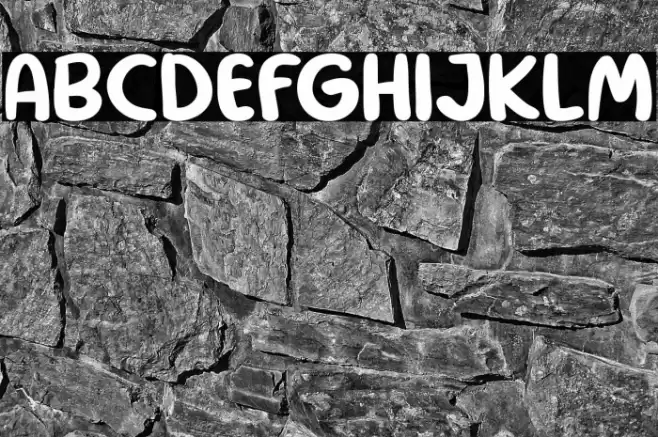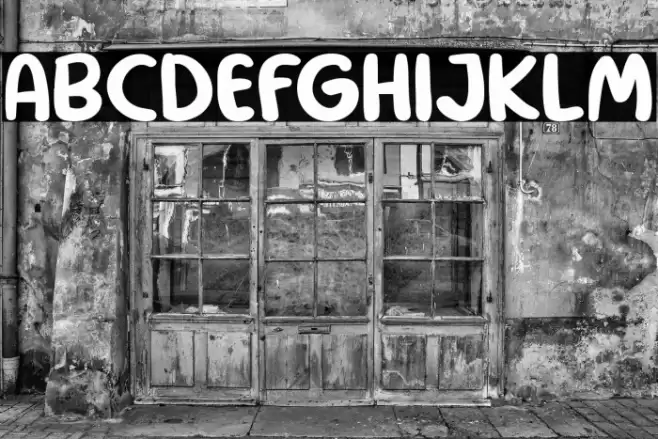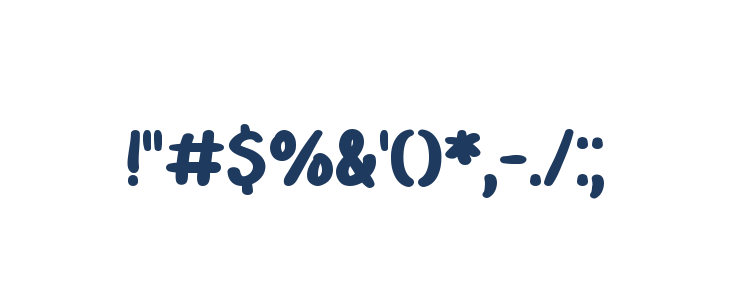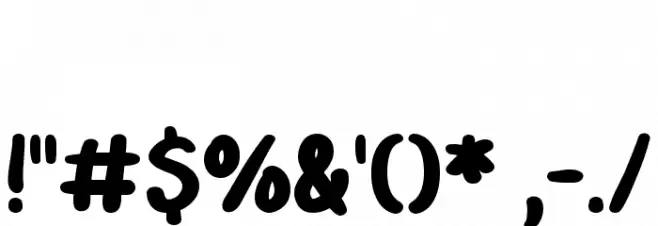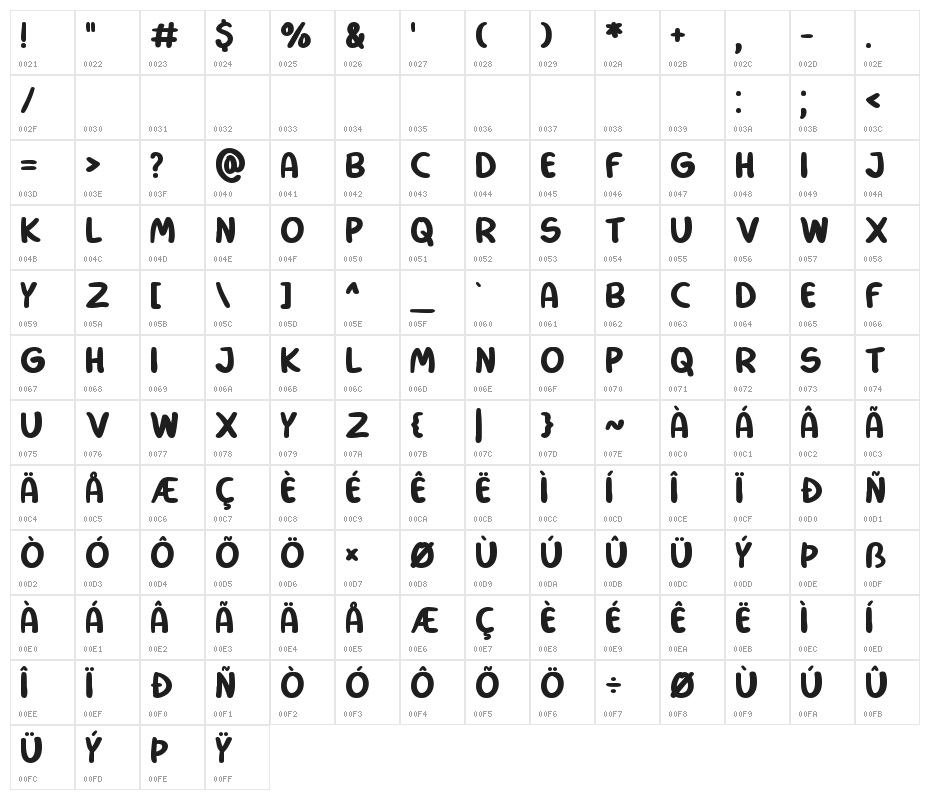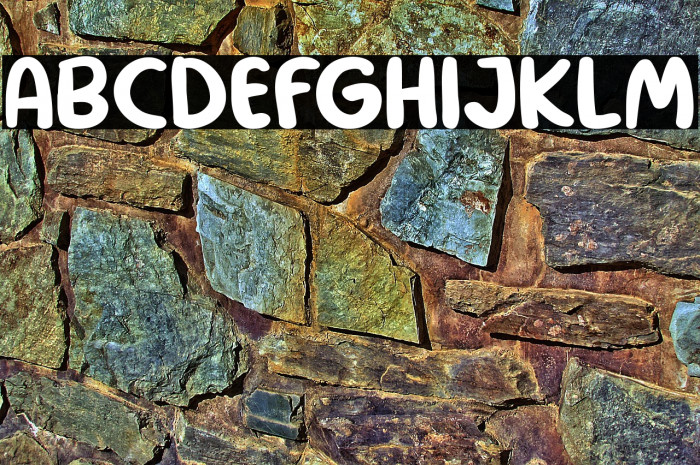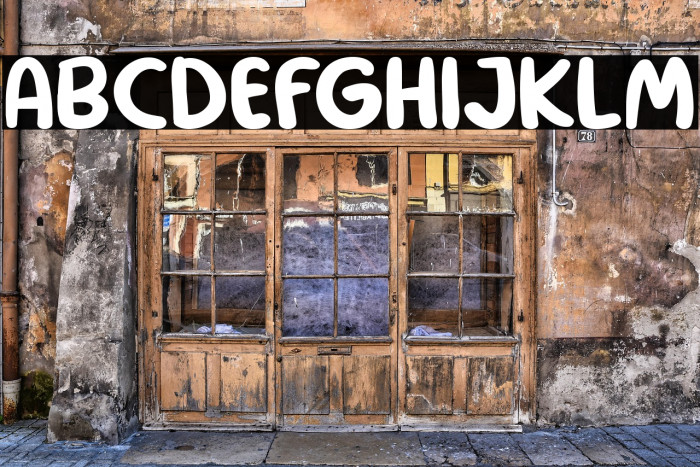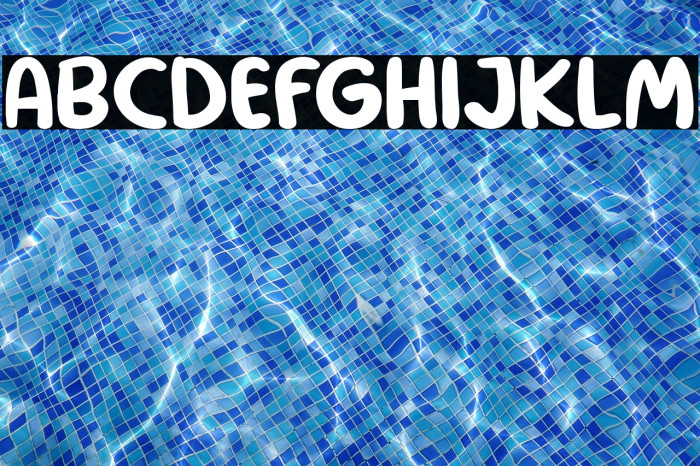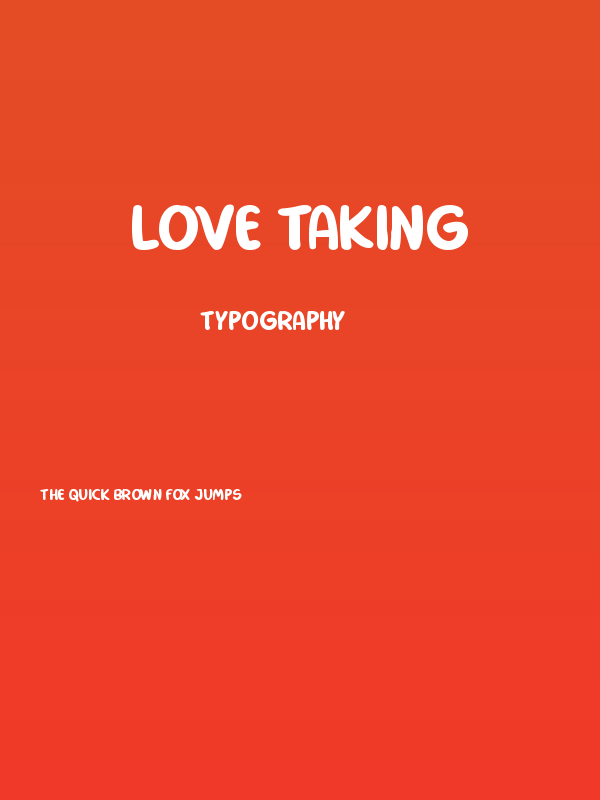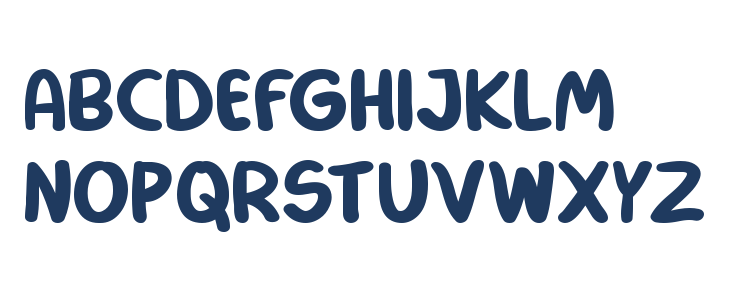
Love Taking Font
Love Taking Description
This playful and bold font features rounded, thick strokes that give it a friendly and approachable appearance. The characters are slightly condensed, enhancing its readability while maintaining a whimsical style. The uppercase and lowercase letters are consistent in their rounded forms, creating a harmonious look across the alphabet. The numbers and special characters follow the same design principles, ensuring uniformity throughout the font. Its boldness and unique style make it ideal for projects that require a touch of fun and creativity.
A playful, bold font with rounded, thick strokes and a friendly appearance from Uncategorized fonts.
- Font: Love Taking
- Proposed Projects: Great for children's books, playful branding, posters, and social media graphics.
- Overall Style: Playful